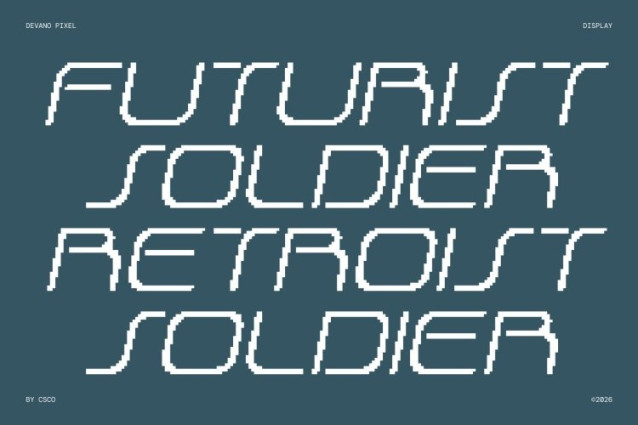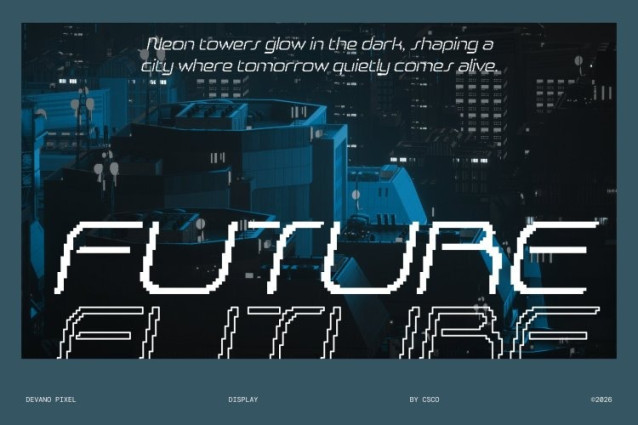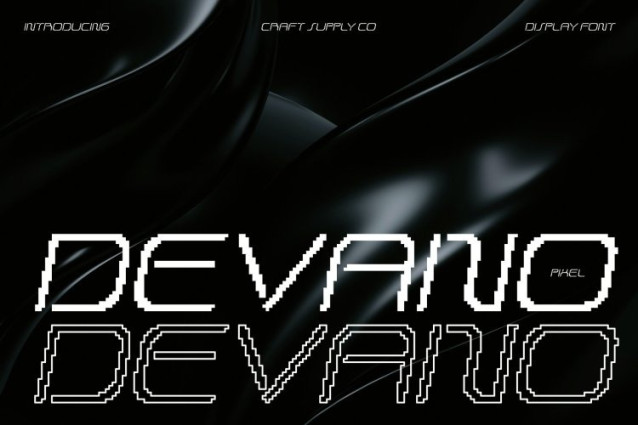
Devano Pixel Font
Devano Pixel Font This is a modern display typeface that perfectly balances futuristic sophistication with retro 8-bit charm. Its geometric shapes, sharp angles, and sleek lines convey innovation and forward-thinking design, while its pixelated structure adds a nostalgic, digital edge.
Ideal for Futuristic Projects
Designed for posters, logos, branding, and digital projects, this font brings a forward-looking touch to any creative work. Its tall, rigid construction ensures clarity and impact, making it ideal for designs that aim to stand out while evoking both modernity and nostalgia.
Dynamic and Contemporary
With its clean lines and precise pixelated edges, this font captivates with a dynamic aesthetic. It fuses a contemporary feel with retro digital style, making it versatile for futuristic themes, video games, tech branding, and other digital-focused projects.
A Must-Have Typeface for Tomorrow
This is more than a font it’s a statement. Combining futuristic design with classic pixel charm, it’s perfect for projects that envision what comes next while celebrating the nostalgic appeal of retro digital typography. Elevate your display typography with this font and embrace the future of design.